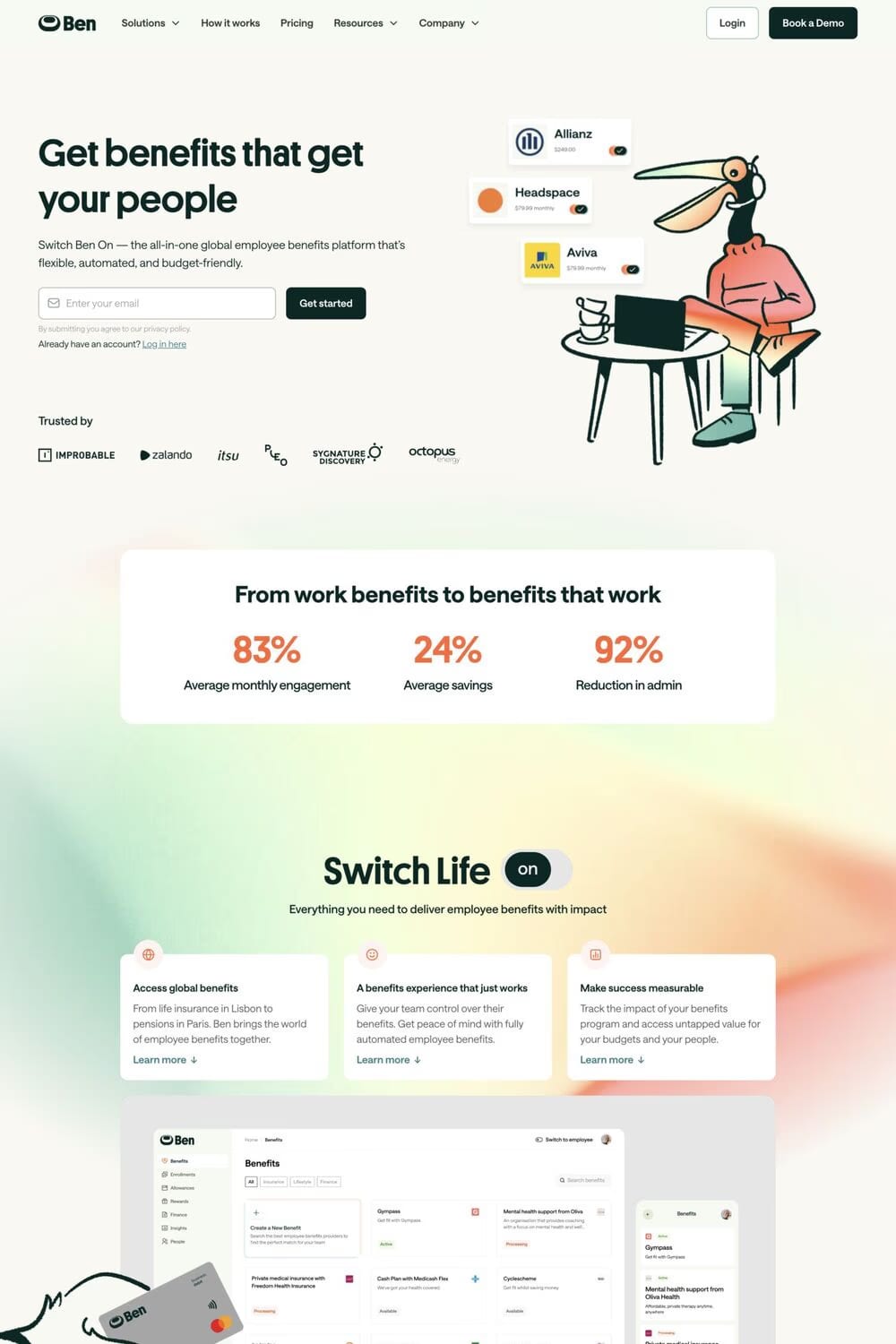
Platform is a sans-serif typeface from Commercial Type.
Platform was the first typeface released by Berton Hasebe. At heart, this family is an exploration of how the geometric sans serif – some of the most well-trod territory of 20th century type design – can be approached in a contemporary context. Rather than aiming for perfection, Platform instead plays with the inherent crudeness in letters that have been reduced to their simplest essence, distilling ideas from contemporary graphic design into typographic forms.